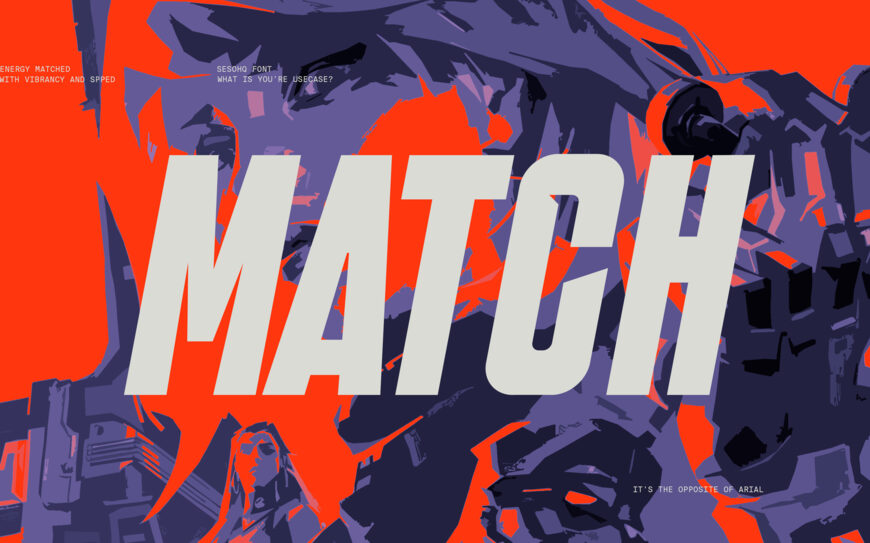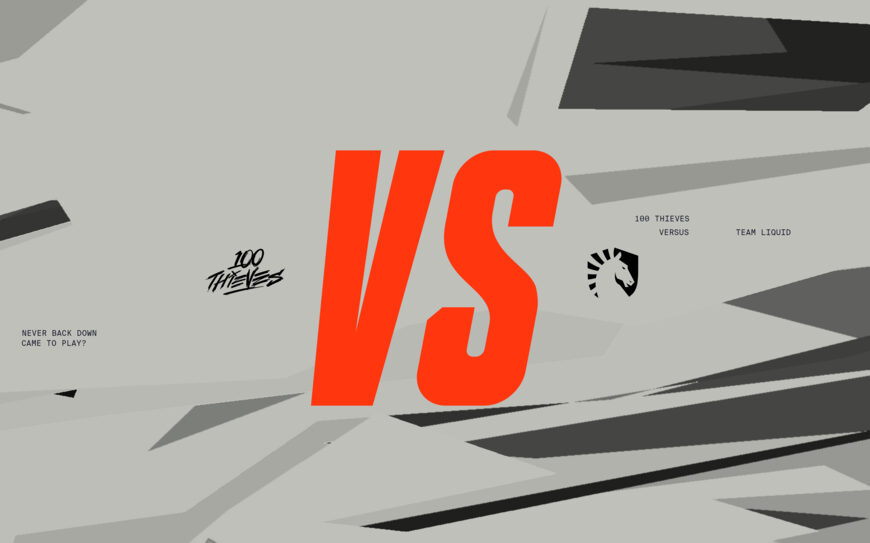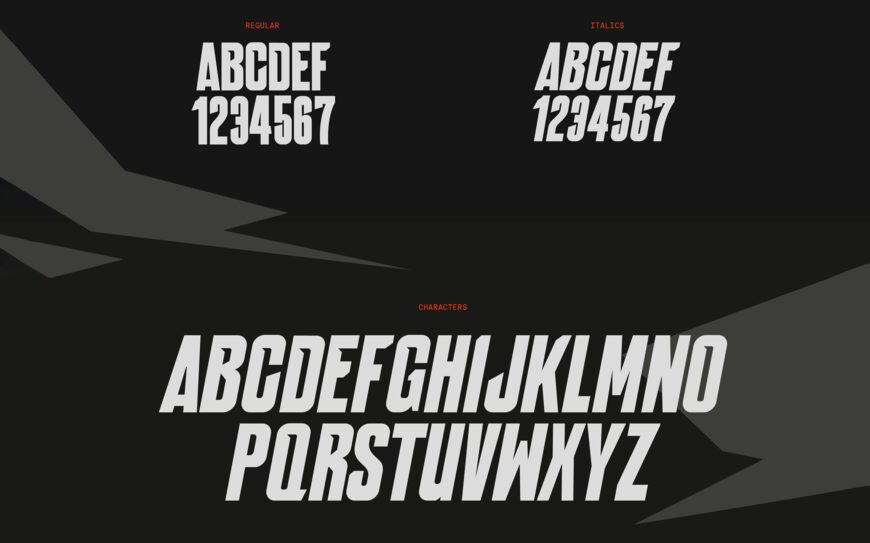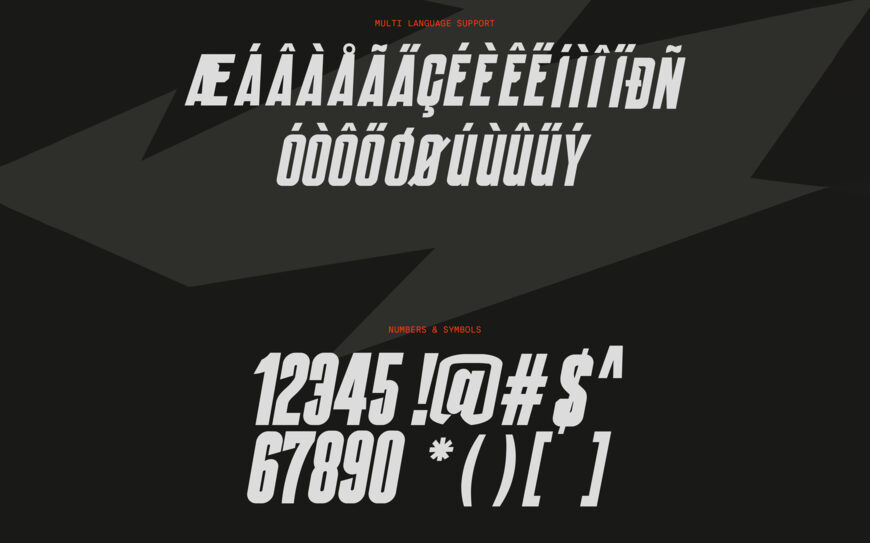
Laira Font
Inspired by the exhilarating world of Esports, Laira is a tribute to the bold, the striking, and the dynamic. It’s an all-caps display font that embodies the edgy angularity intrinsic of the world of gaming. Compatible with all things sports and media, this typeface has the opportunity to help bring a vibrant and bold stance to your collection. Includes Regular and Italic.
Designed by: Sesohq